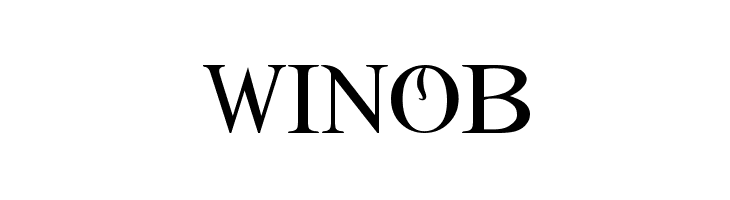
( Fonts by Seth Martin )
A decorative serif font with elegant swashes and flourishes.
( Fonts by ShyFonts )
A bold, italicized handwritten font with a playful, cartoon-like style.
( Fonts by Qwrtype Foundry )
A playful, handwritten font with smooth, rounded strokes and a casual feel.
A modern, clean sans-serif font with uniform stroke width and excellent readability.
( Daniel Plant - www.fontmonster.org )
A modern, geometric font with sharp angles and high contrast.
A bold, angular font with a modern and decorative style.
( Skyhaven Fonts - fonts.plph.co )
A handwritten font with a casual, organic style and tall, narrow uppercase letters.